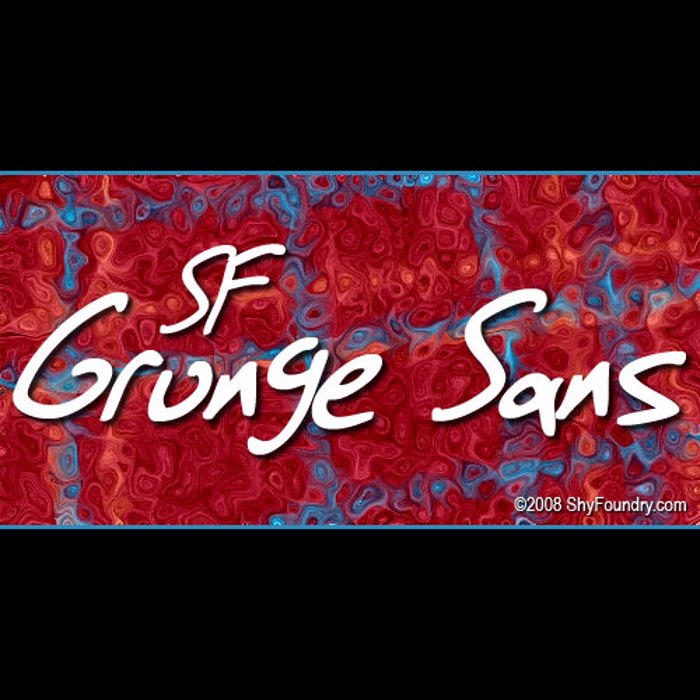
SF Grunge Sans Font
A grungy, no-good hand written typeface, SF Grunge Sans contains lowercase and uppercase letters, numbers, punctuation, and accented characters.